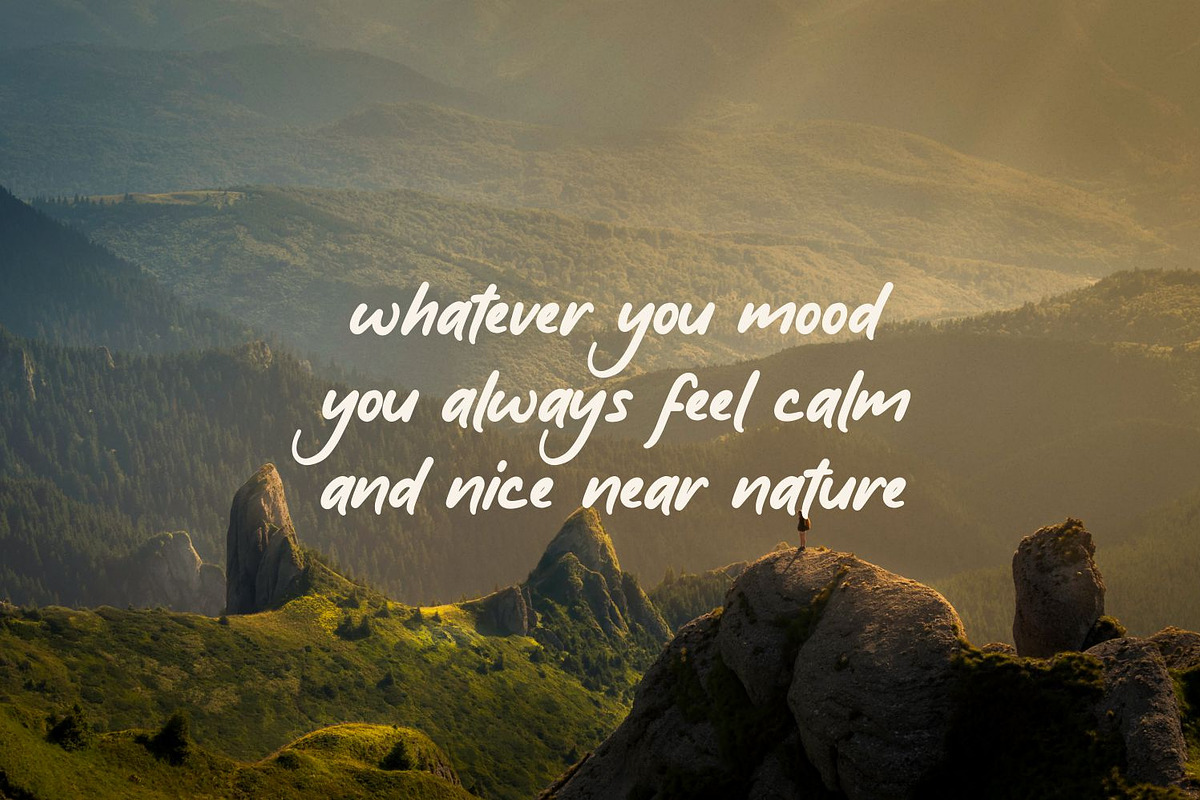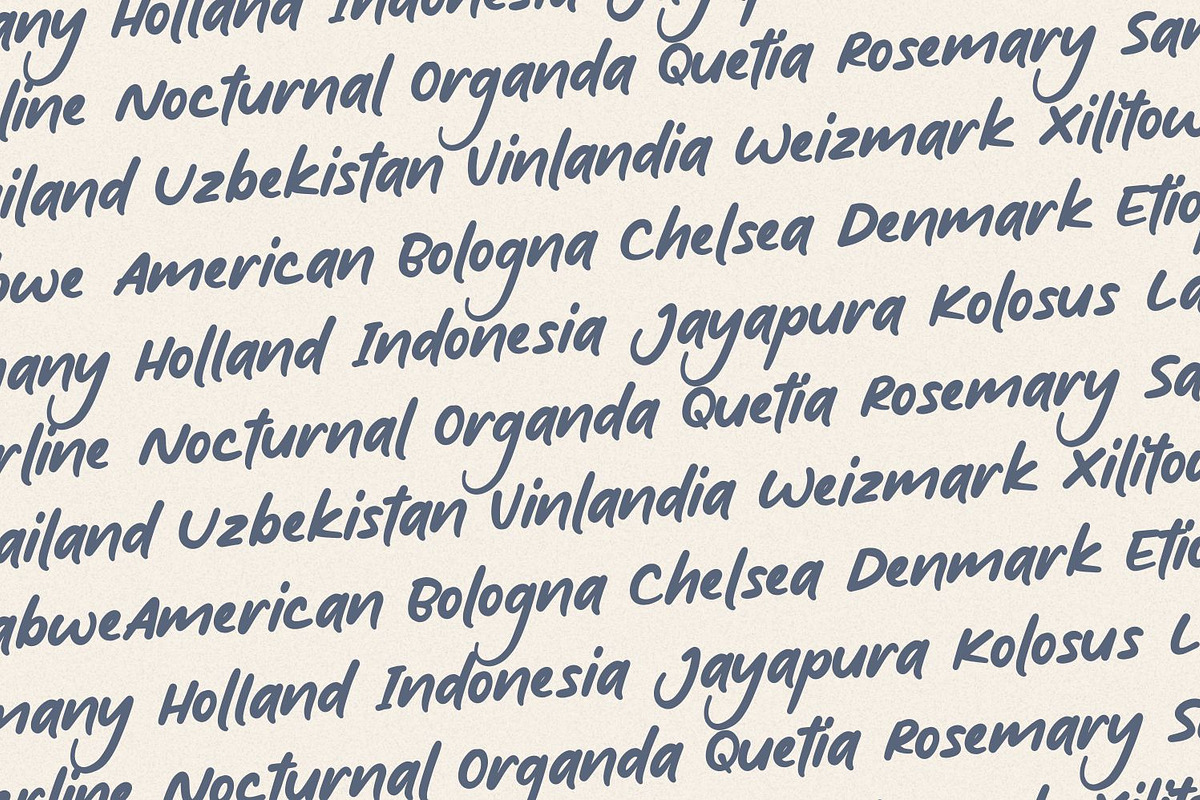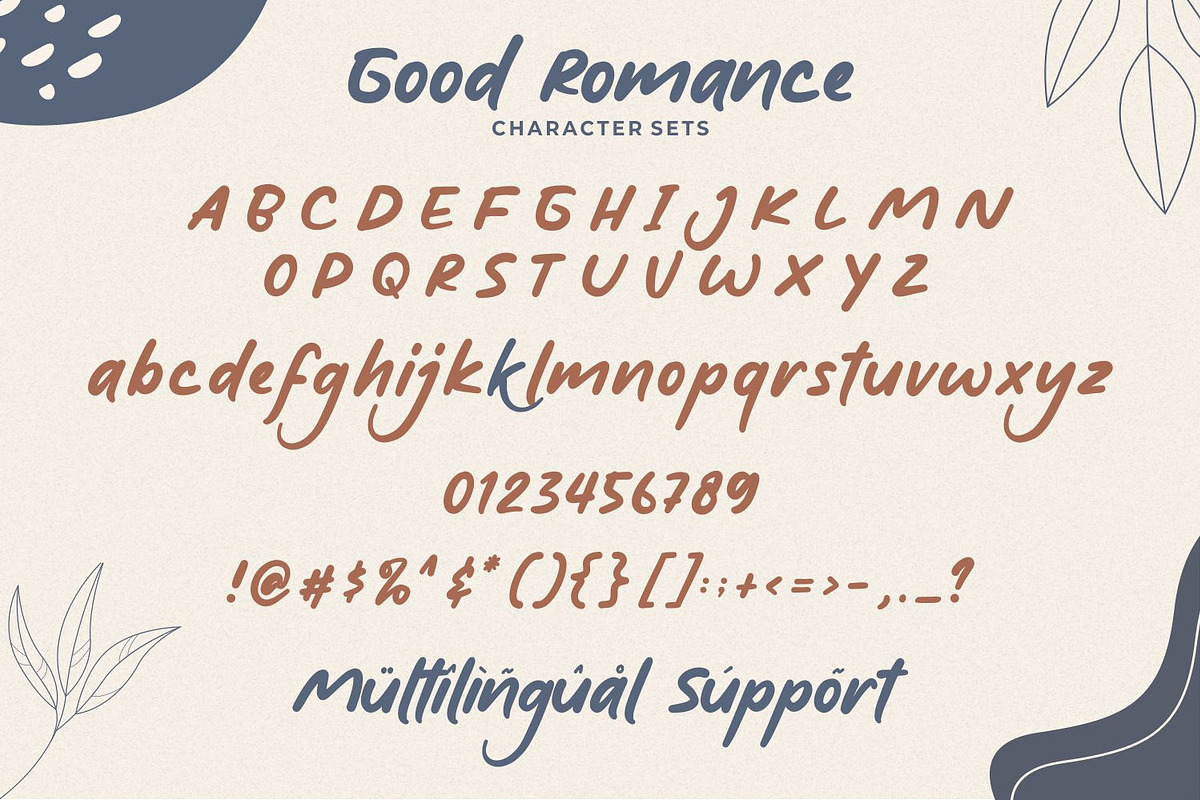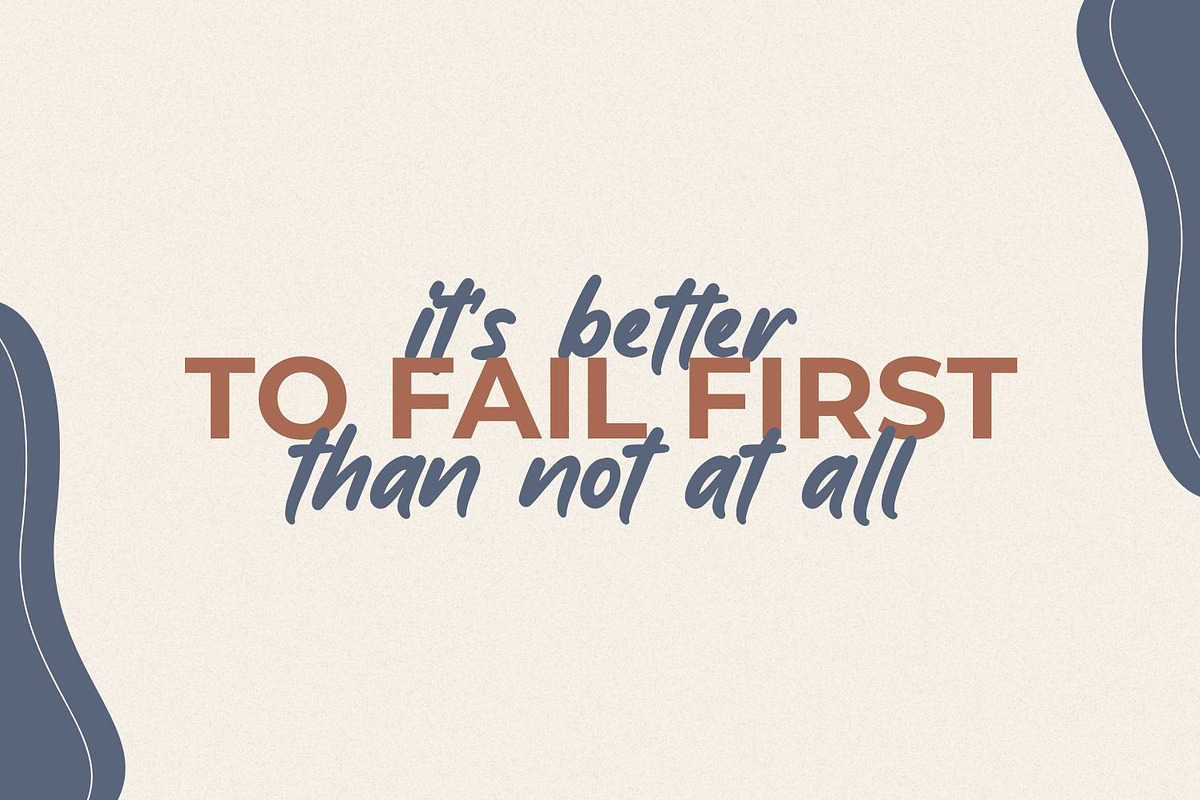
Good Romance - Natural Handwritten
Introducing Good Romance - Natural Handwritten
Good Romance - Natural Handwritten font is a natural & modern handwritten font. I'ts Perfect for logo, invitation, stationery, wedding designs, social media posts, advertisements, product packaging, product designs, label, photography, watermark, special events or anything. This font include : Good Romance OTF-TTF-WOFF, Ligatures, and also Multilingual support.
What's Advantages Good Romance ?
- Very great for branding, logotype, handletteing, invitations, or fashion branding.